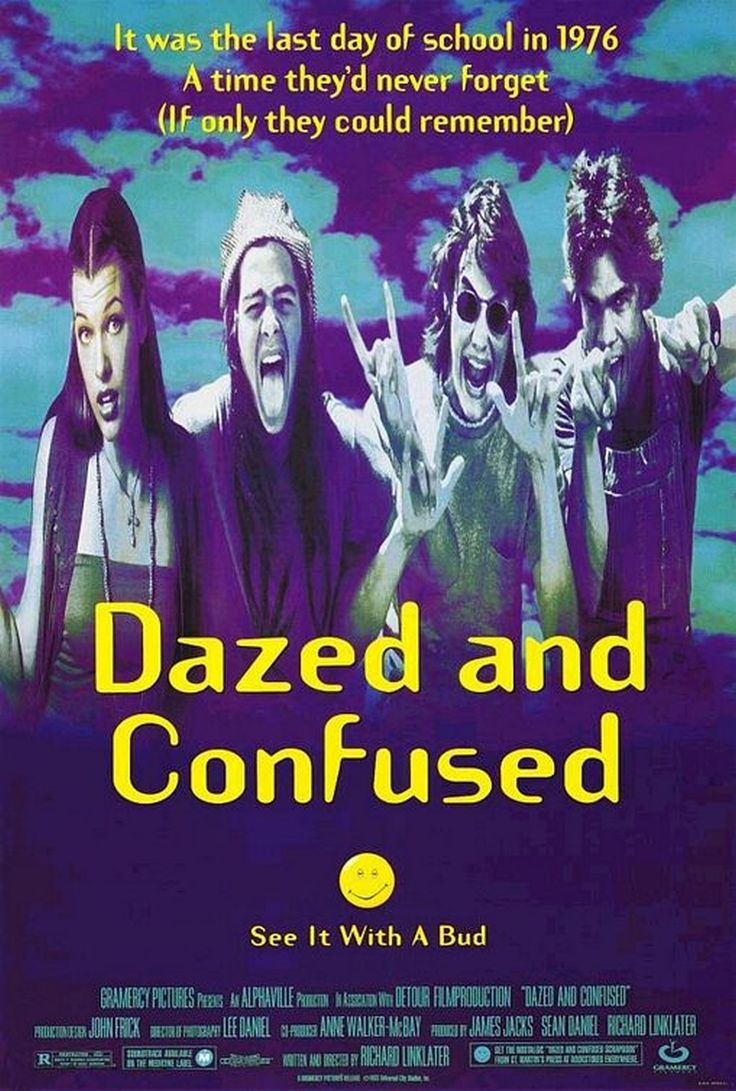
Dazed and Confused [Movie] Font
ComedyDazed and Confused is a 1993 coming-of-age film directed by Richard Linklater. It follows a group of high school students in Texas in 1976 on the last day of school and their subsequent experiences over the summer.
The poster for the film features the bold version of Template Gothic as its title font. Template Gothic is a distinctive sans serif with a grunge appearance, created by Barry Deck in 1990 and published by Emigre.